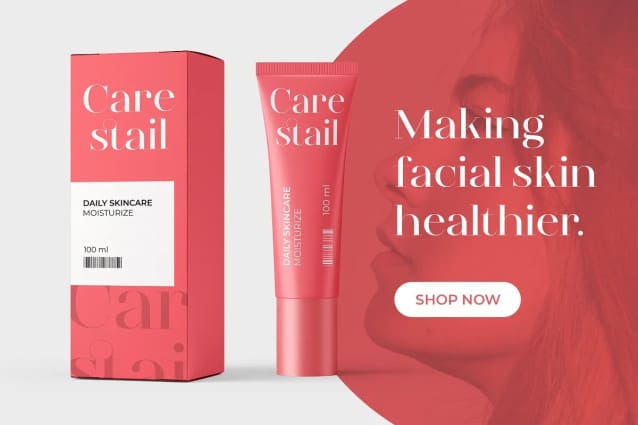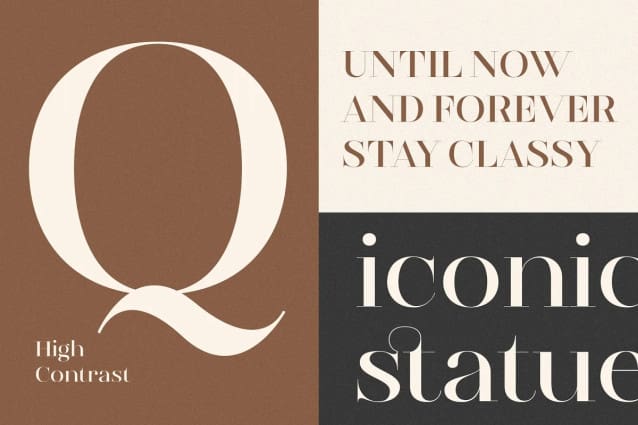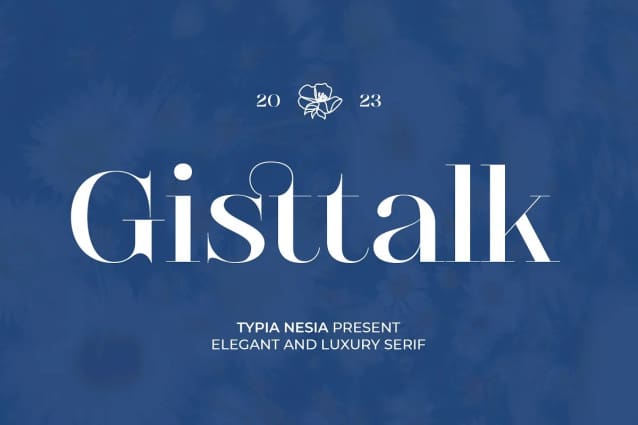
Gistalk Font
Gistalk Font – Elegance and Luxury Serif Font – Serif Meets Sophistication for timeless and high end Branding. Gistalk embodies sophistication with its Elegance Luxury Serif style. Crafted to elevate any design, its timeless appeal and refined details make it a go-to choice for projects requiring a touch of class. Such as Logo Design, Business Cards, Packaging Design, you can Apply the elegant serif font on product packaging to give it a luxurious feel, Website Design, Printed Marketing Materials to convey a sense of high-end quality, Social Media Graphics, Stationery Design, and Product Catalog. Using meticulously crafted ligatures enhances its visual appeal, establishing Gistalk Font as a font of choice for those who appreciate the artistry of typography.